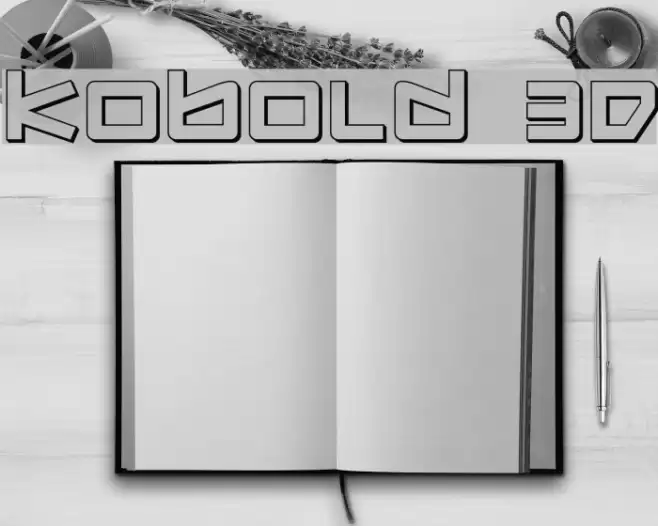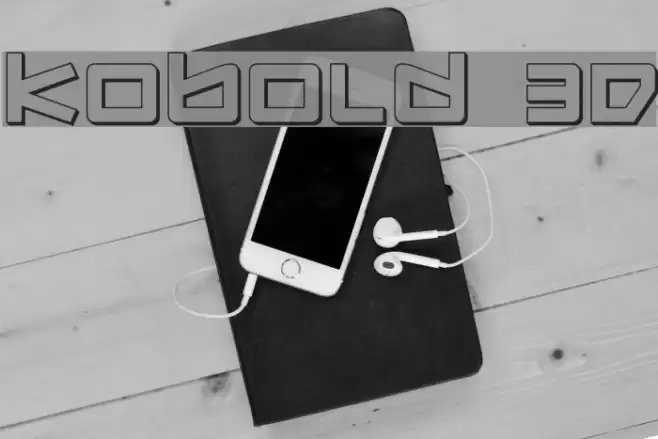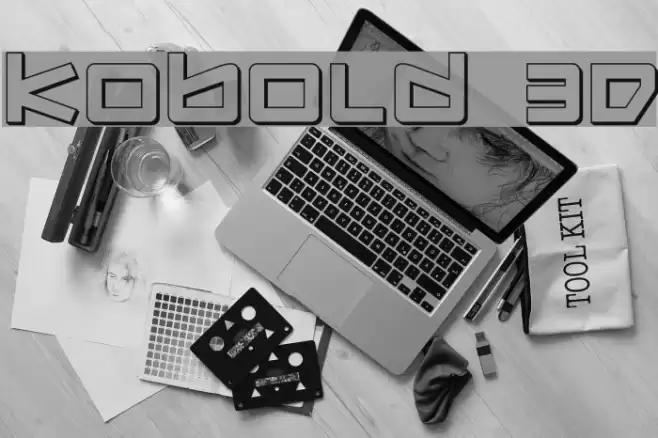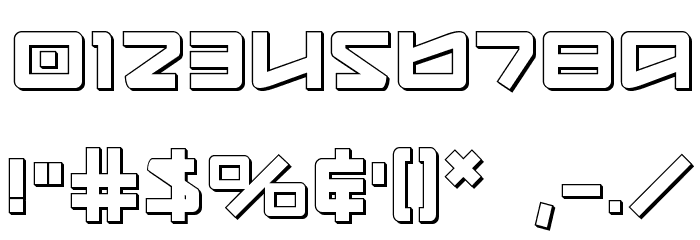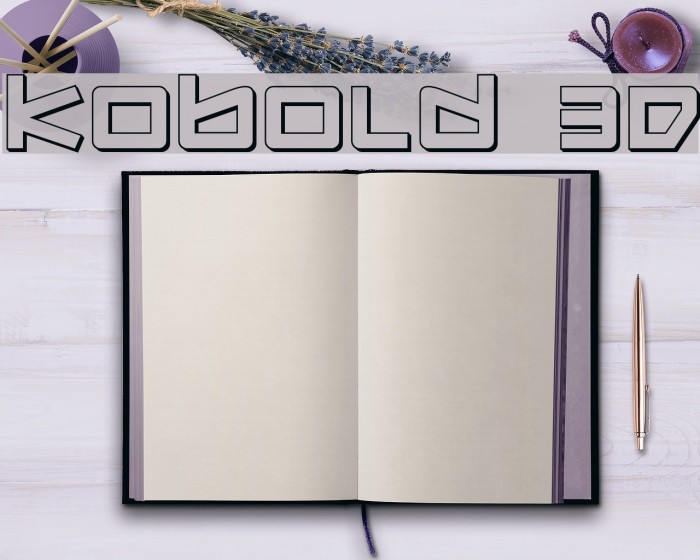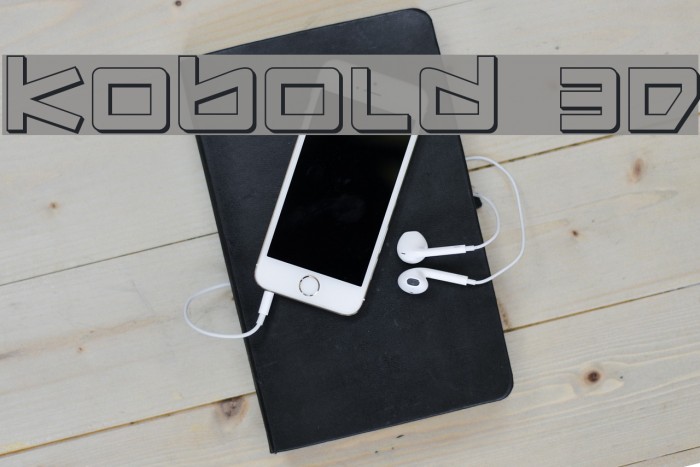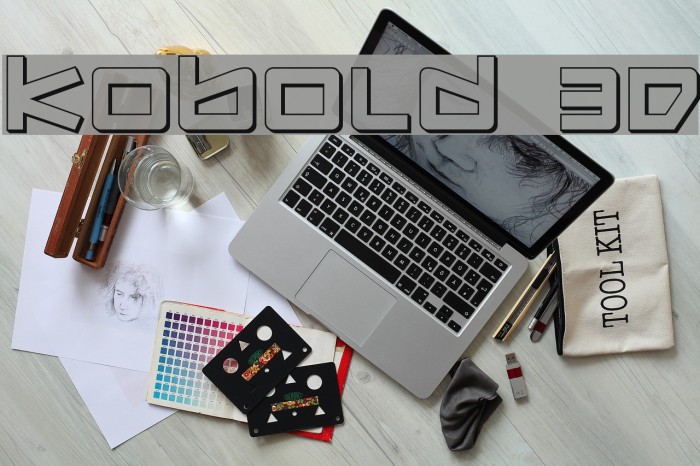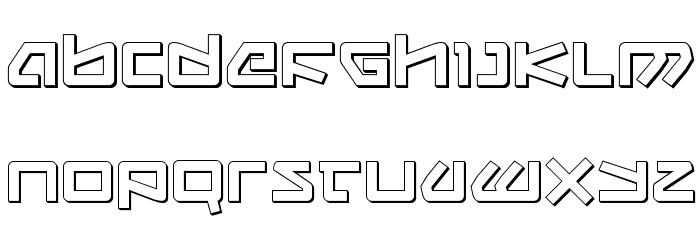
Kobold 3D Font
Kobold 3D Description
This font features a futuristic and geometric design, characterized by its bold, angular lines and open counters. The characters are outlined, giving them a three-dimensional appearance that adds depth and visual interest. The uppercase and lowercase letters maintain a consistent style, with sharp edges and a uniform stroke width. The numerals and special characters follow the same design principles, ensuring a cohesive look across all glyphs. This font's unique style makes it stand out, making it suitable for projects that require a modern and edgy aesthetic.
A futuristic, geometric font with bold, angular outlines and a three-dimensional look from Sci-fi fonts.
- Proposed Projects: Ideal for sci-fi themed designs, video game graphics, tech branding, and modern posters.